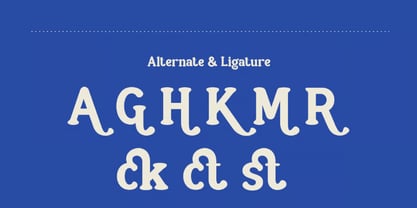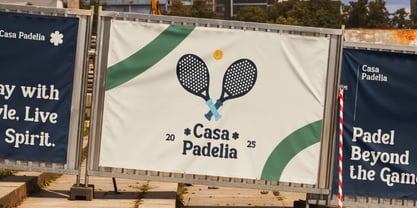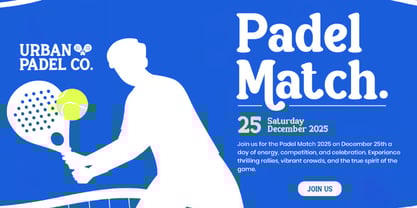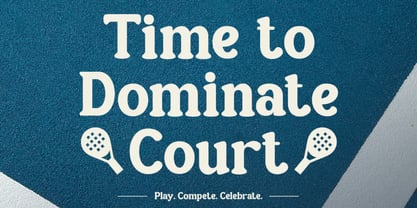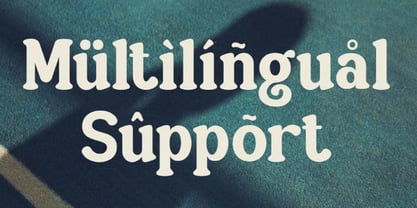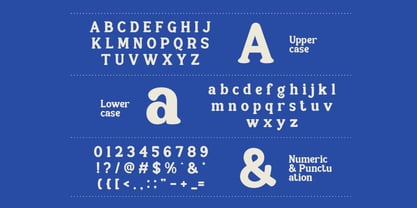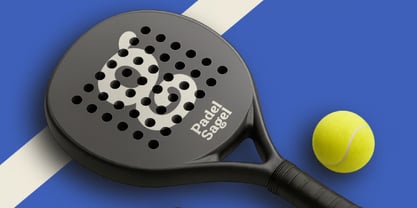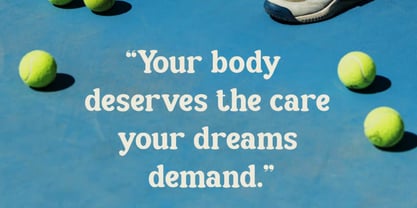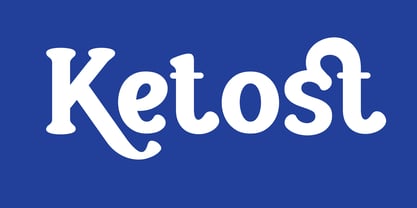
Ketost
by Hasnat Studio
The Ketost Font Family was designed by Hasnat Khan and published by Hasnat Studio. Ketost contains 1 styles. More about this family
Ketost is a retro elegant serif typeface that seamlessly combines classic charm with modern refinement. Featuring smooth curves, distinctive serifs, and balanced proportions, Ketost offers a timeless aesthetic that evokes nostalgia while maintaining sophistication. This typeface is perfect for designers aiming to convey confidence, personality, and high-end style. With its polished details, stylish alternates, and refined ligatures, Ketost infuses expressive character into any creative project. Whether utilized for branding, editorial layouts, packaging, or social media, this typeface presents a harmonious blend of vintage elegance and contemporary beauty. ✿ Key Features: Uppercase & Lowercase Letters: A complete alphabet with refined, retro-inspired shapes. Alternates & Ligatures: Elegant stylistic variations for custom typography. Numerals & Punctuation: A full character set to meet professional design needs. Multilingual Support: Includes accented characters for extended language coverage. ✿ Perfect For: Branding & Logo Design: Craft memorable, luxurious, and timeless brand identities. Editorial & Magazine Headlines: Ideal for expressive and stylish typography. Fashion & Lifestyle Design: Perfect for upscale visual identities and campaigns. Product Packaging: Adds refined sophistication to labels and premium goods. Invitations & Stationery: An elegant choice for weddings, events, and formal designs. Social Media & Marketing: Enhances quotes, promotions, and stylish digital content. Elevate your creative work with Ketost — a retro elegant serif typeface that brings timeless beauty, expressive character, and modern sophistication to every project.
Designers: Hasnat Khan
Foundry: Hasnat Studio